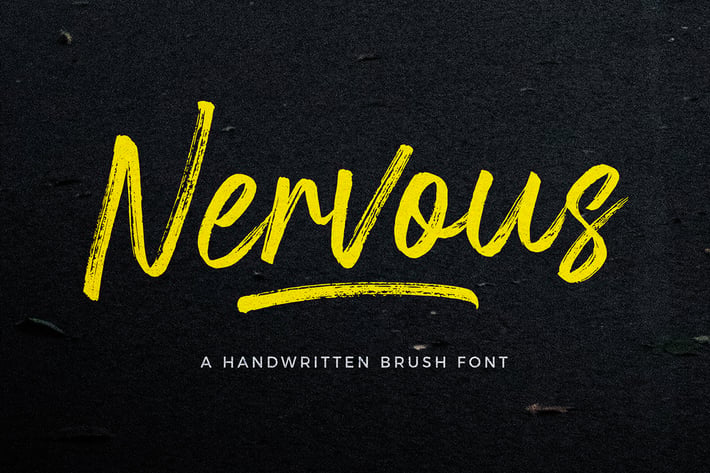
Nervous Brush Font
Nervous is a handwritten brush font with a bold twist. Nervous perfect for branding, logo, poster design, book covers, invitations, packaging, headers, greeting cards, apparel designs, fashion campaigns, newsletters, album covers, quotes, and many more. It will add an authentic spark to any creative project!
- Uppercase & lowercase
- Number & punctuation symbols
- Stylistic Sets
- International characters (Multilingual)